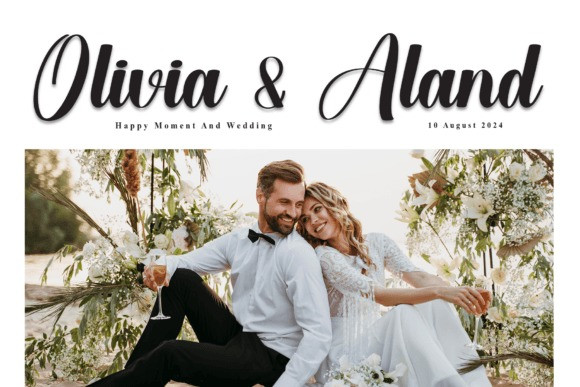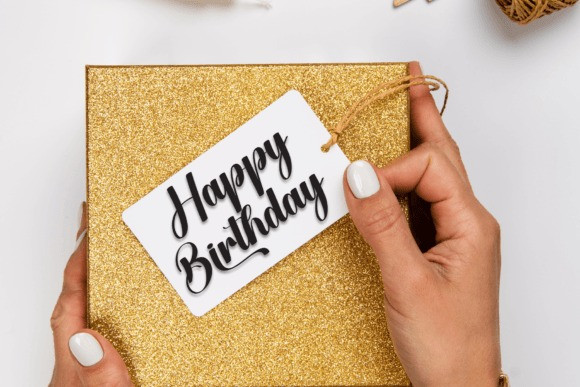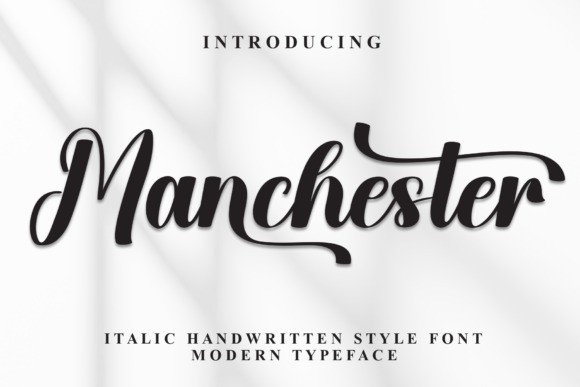
Manchester Script Typeface
Manchester Script Typeface is a charming handwritten font that mixes bold and thin lines. Its unique style gives a personal and casual feel, making it great for notes, invitations, and any creative project!